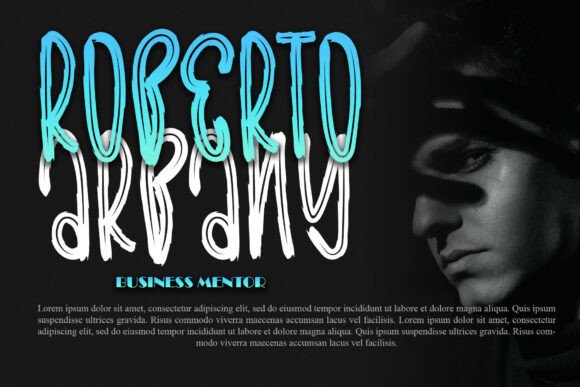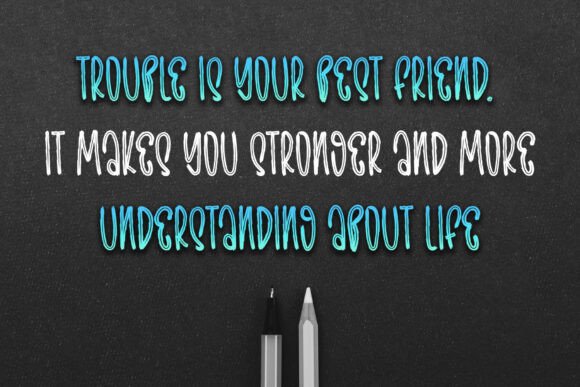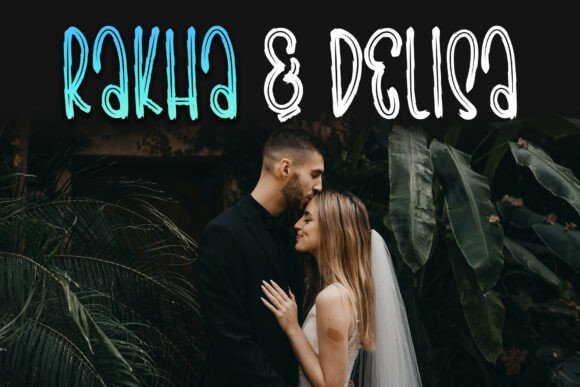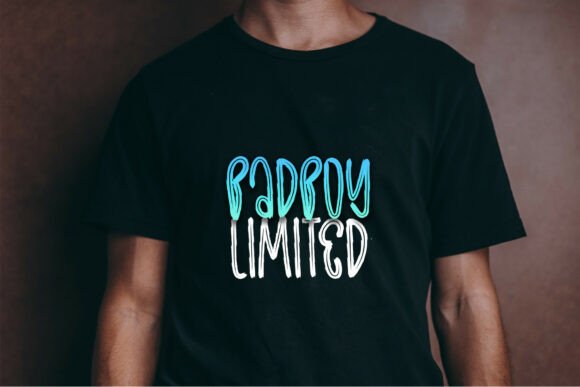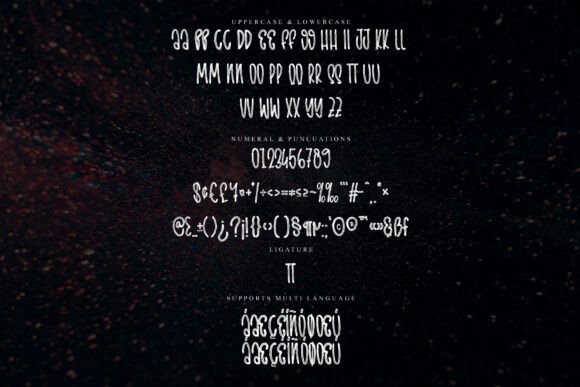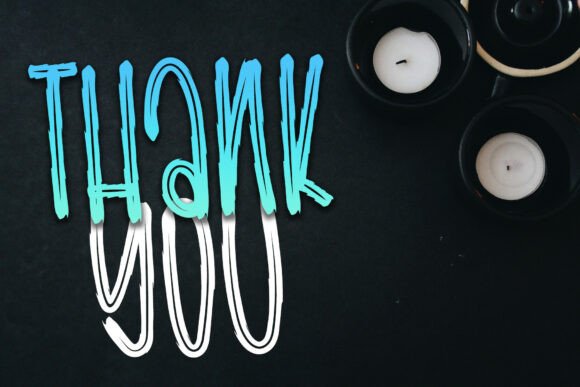
Unleash the Magic of Brush Border Font: Elevate Your Designs with Elegance and Strength
In the realm of typography, few fonts manage to strike a balance between strength and elegance as effortlessly as Brush Border Font. This captivating display font has been turning heads with its unique blend of boldness and sophistication, making it an ideal choice for designers and crafters looking to add a touch of magic to their projects. With its distinctive letterforms and an air of mystery, Brush Border Font is the perfect companion for those aiming to create bold, eye-catching designs that exude wonder and refinement.
The Allure of Brush Border Font
Brush Border Font is more than just a collection of letters; it’s an experience. Its design is rooted in the perfect fusion of modernity and classic elegance, allowing it to stand out in any medium. Whether you’re working on a branding project, a website design, or crafting beautiful printable art, this font is sure to leave a lasting impression. The unique brush-stroke effect gives the letters a dynamic, hand-crafted feel, adding a layer of authenticity and charm to your work.
One of the key advantages of Brush Border Font is its incredible versatility. It’s a font that can adapt to various design needs and themes. For instance:
- Mystical and Magical Projects: The whimsical and somewhat mysterious vibe of Brush Border Font makes it a perfect fit for projects that require a touch of enchantment. Use it for titles, headings, or any element where you want to evoke a sense of wonder.
- Modern and Bold Designs: The strength and boldness of this font also make it suitable for modern designs that demand a strong visual impact. It’s ideal for logos, posters, and advertisements where you want to grab attention instantly.
- Elegant and Sophisticated Layouts: For designs that lean towards elegance and sophistication, Brush Border Font offers a refined look that’s hard to achieve with standard fonts. It’s perfect for wedding invitations, high-end branding, and luxury product packaging.
Why Designers and Crafters Love Brush Border Font
The popularity of Brush Border Font among designers and crafters can be attributed to several factors:
- Unique Aesthetic: In a sea of generic fonts, Brush Border Font offers a unique aesthetic that’s sure to make your projects stand out.
- Emotional Connection: The font’s design evokes emotions and adds a narrative element to your designs, making them more engaging and memorable.
- Support for Various Projects: From digital designs to print materials, Brush Border Font proves to be a versatile tool that supports a wide range of projects.
Tips for Maximizing the Potential of Brush Border Font
To get the most out of Brush Border Font, consider the following tips:
- Pair it Wisely: For maximum impact, pair Brush Border Font with a simpler font for body text. This contrast will highlight the uniqueness of the font and prevent your design from looking cluttered.
- Experiment with Colors: Don’t be afraid to experiment with different colors and gradients. The brush-stroke effect can look stunning with a variety of color schemes, from monochromatic to vibrant multi-color designs.
- Adjust the Size: Play around with the font size to create visual hierarchy in your designs. Using Brush Border Font in larger sizes can make it a focal point, while smaller sizes can add subtle elegance.
- Emphasize Details: Take advantage of the font’s unique details. Zoom in on the subtle imperfections and strokes that give Brush Border Font its charm.
Brush Border Font is not just a font; it’s a design statement. Its unique blend of strength, elegance, and mystery makes it an invaluable tool for designers and crafters aiming to create bold and eye-catching designs. Whether you’re embarking on a mystical journey, aiming for modern boldness, or seeking elegance, Brush Border Font is your perfect companion. With its versatility, aesthetic appeal, and ease of use, it’s set to become a favorite in your design arsenal. So, unleash the magic of Brush Border Font and watch your designs transform into captivating works of art.